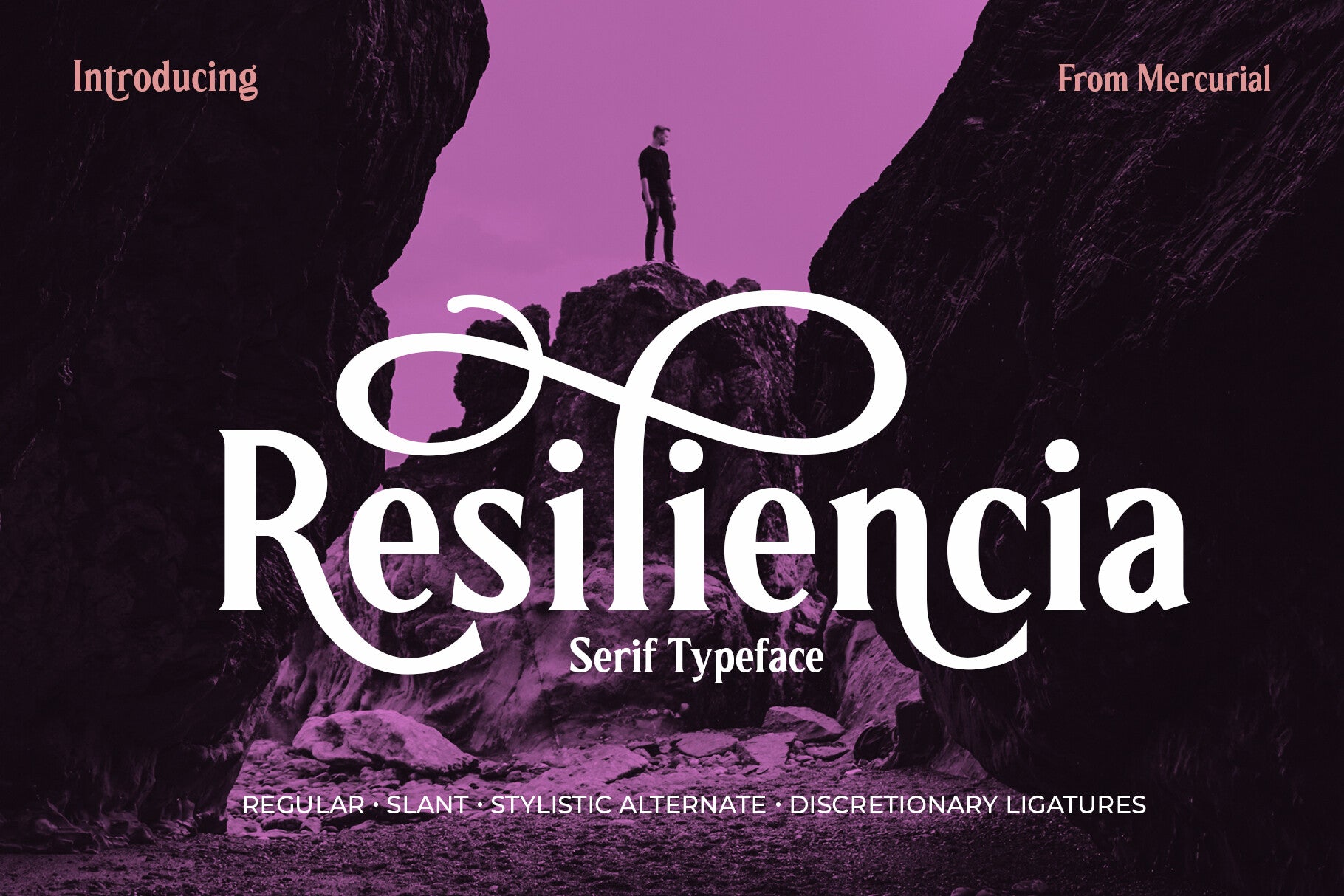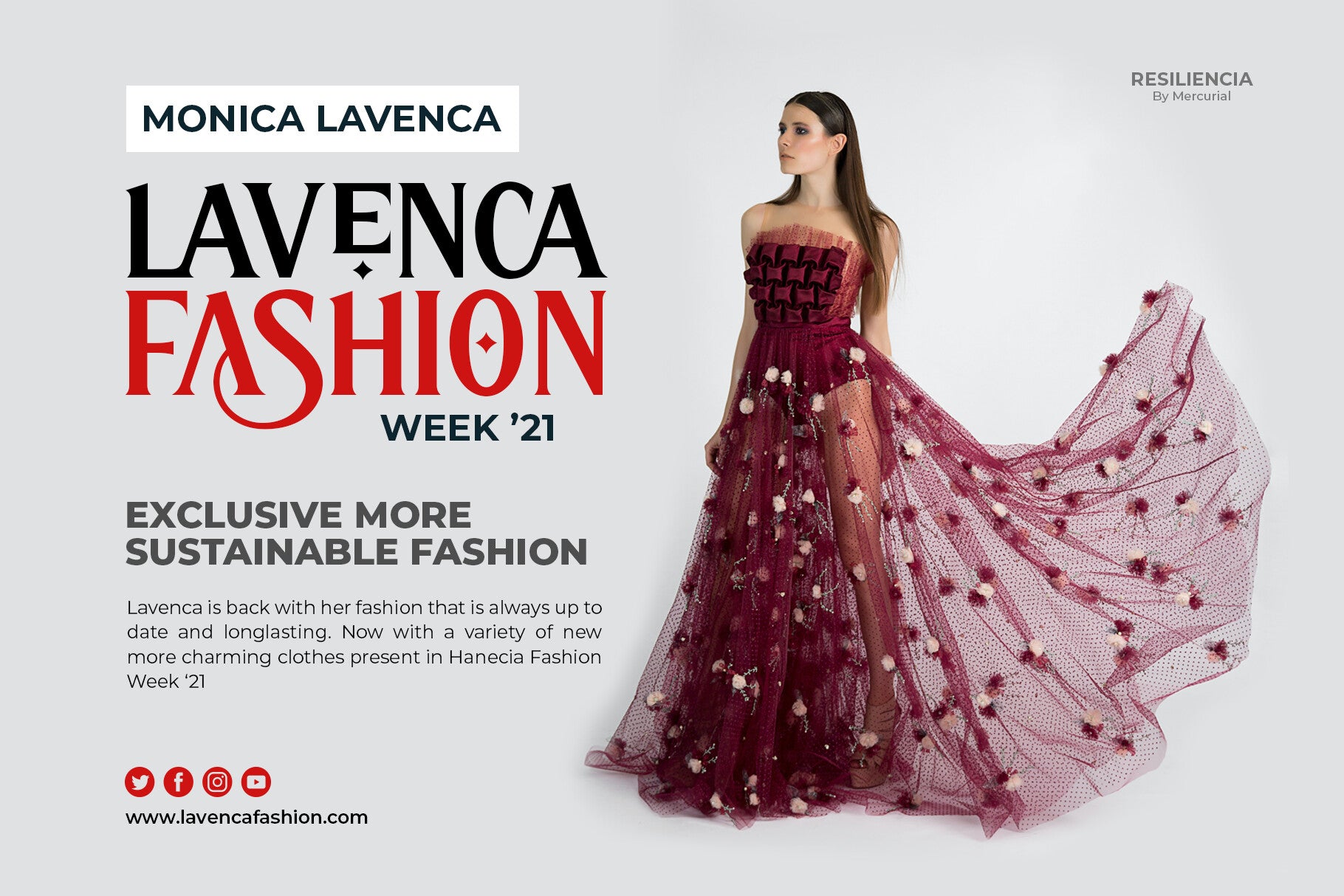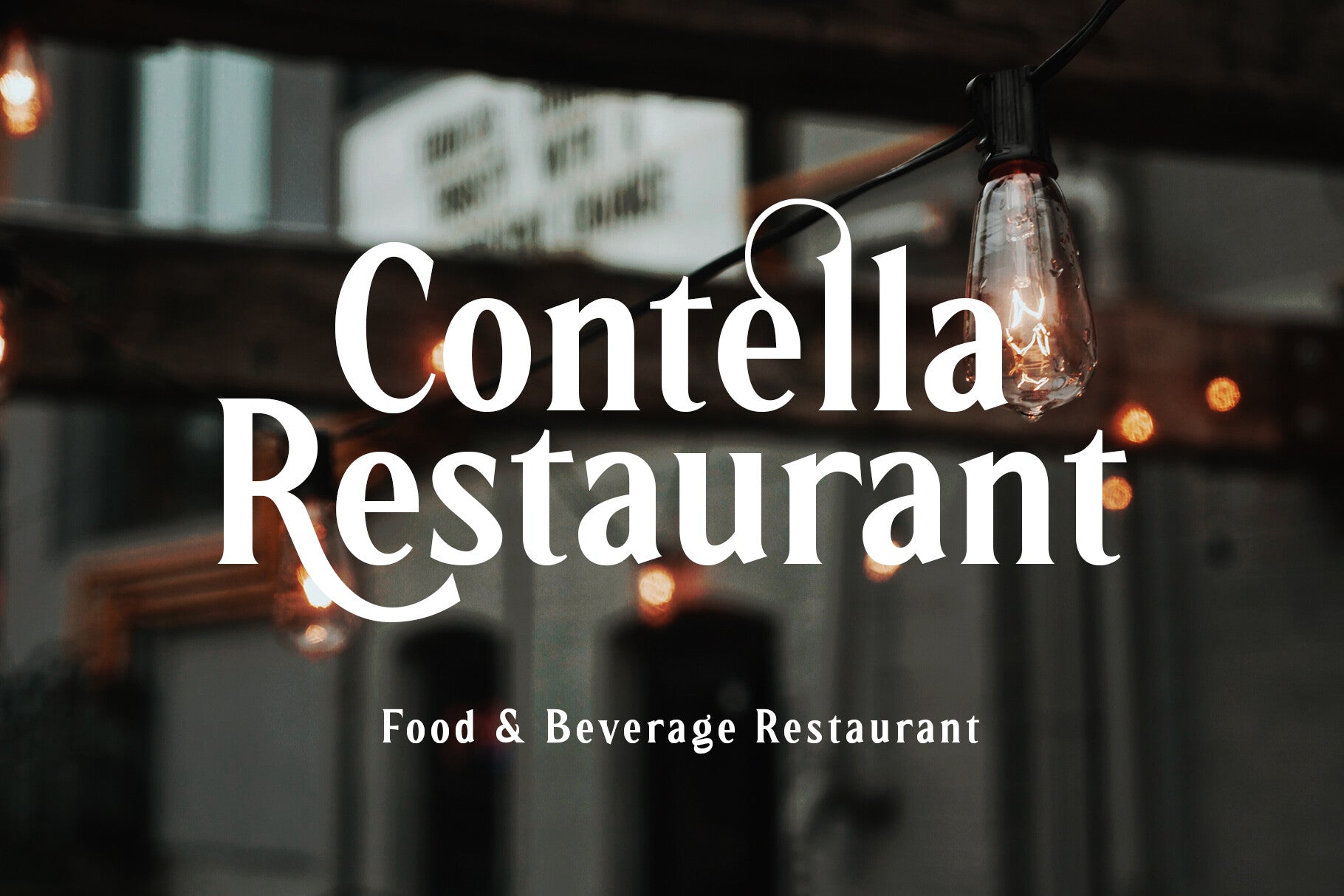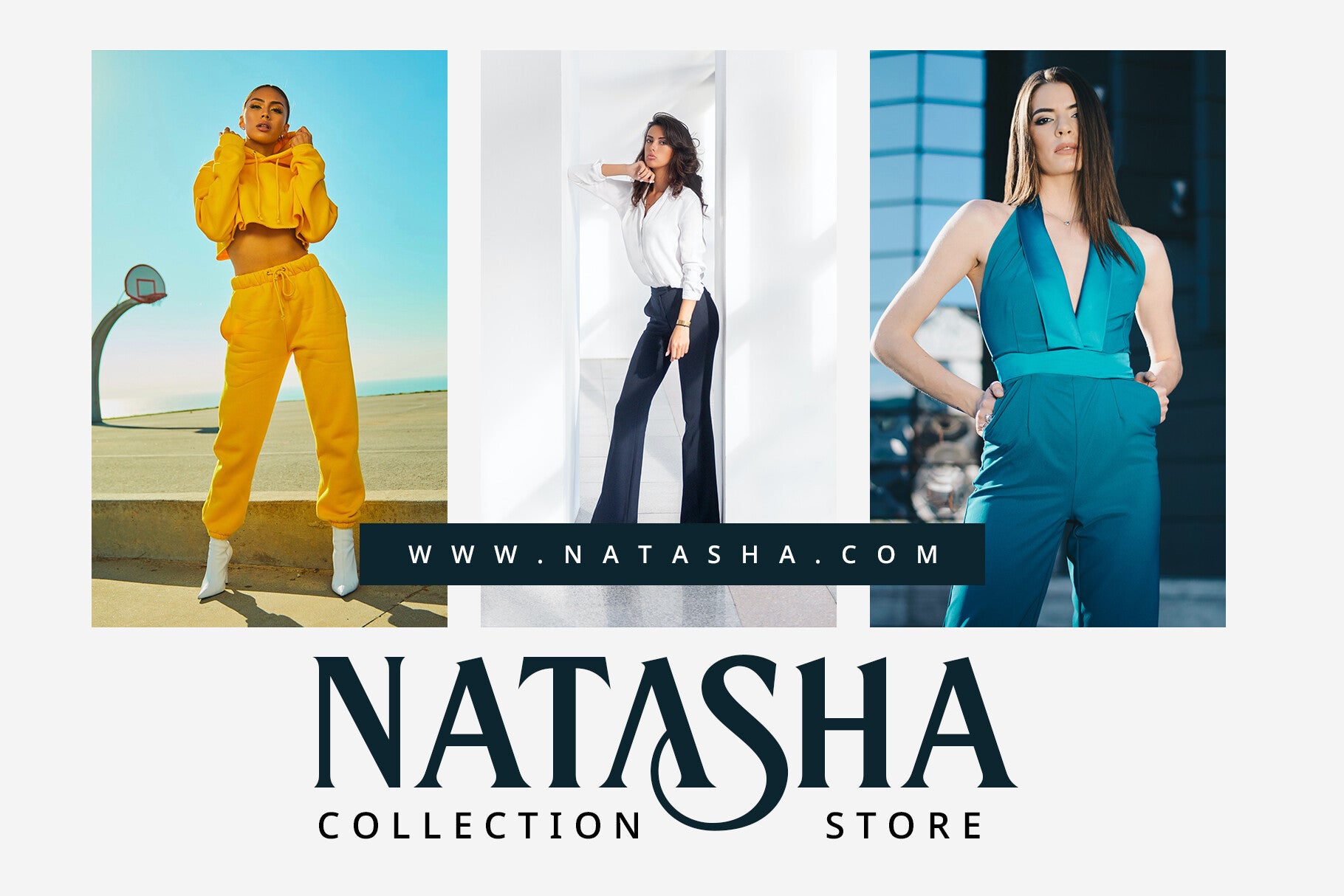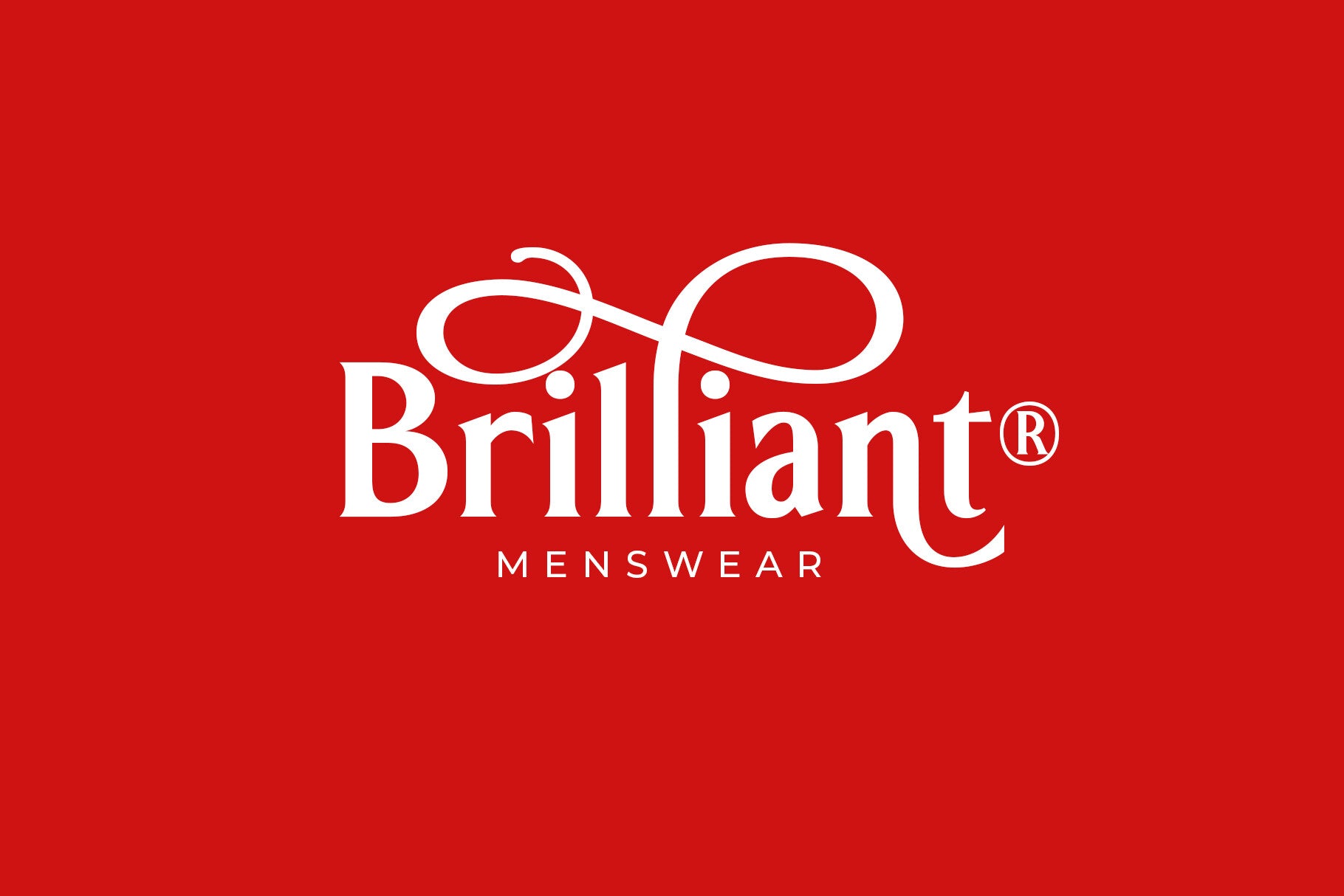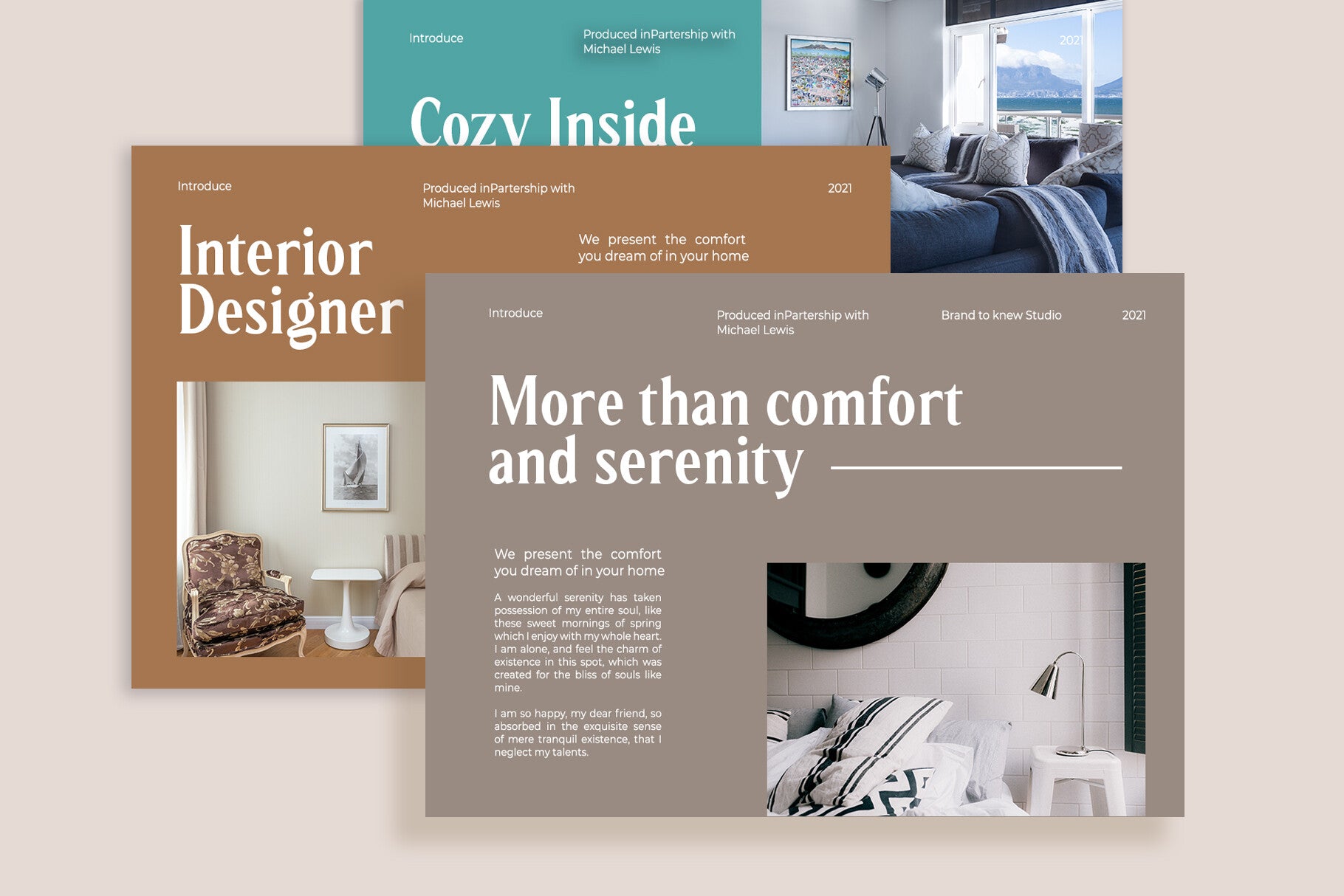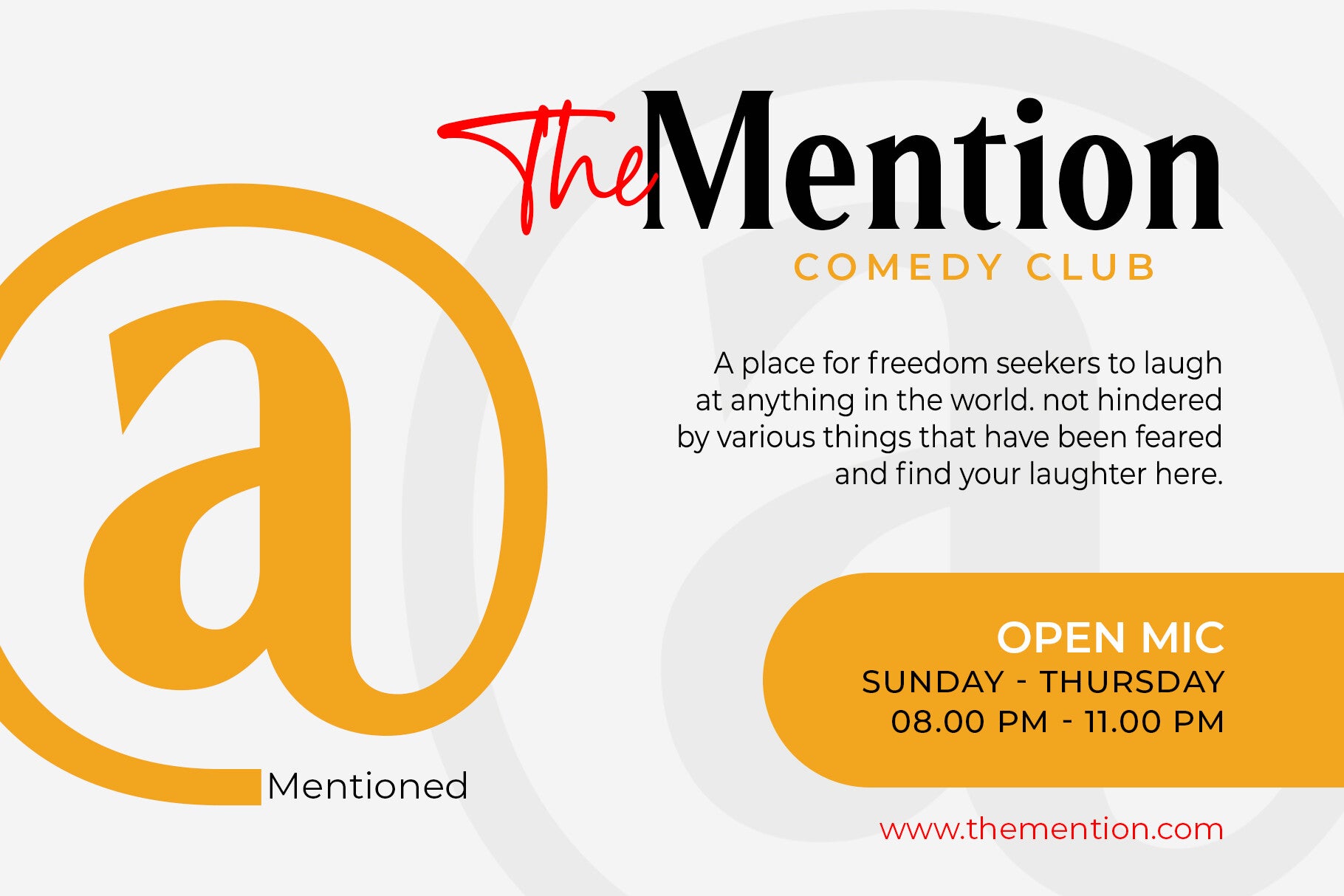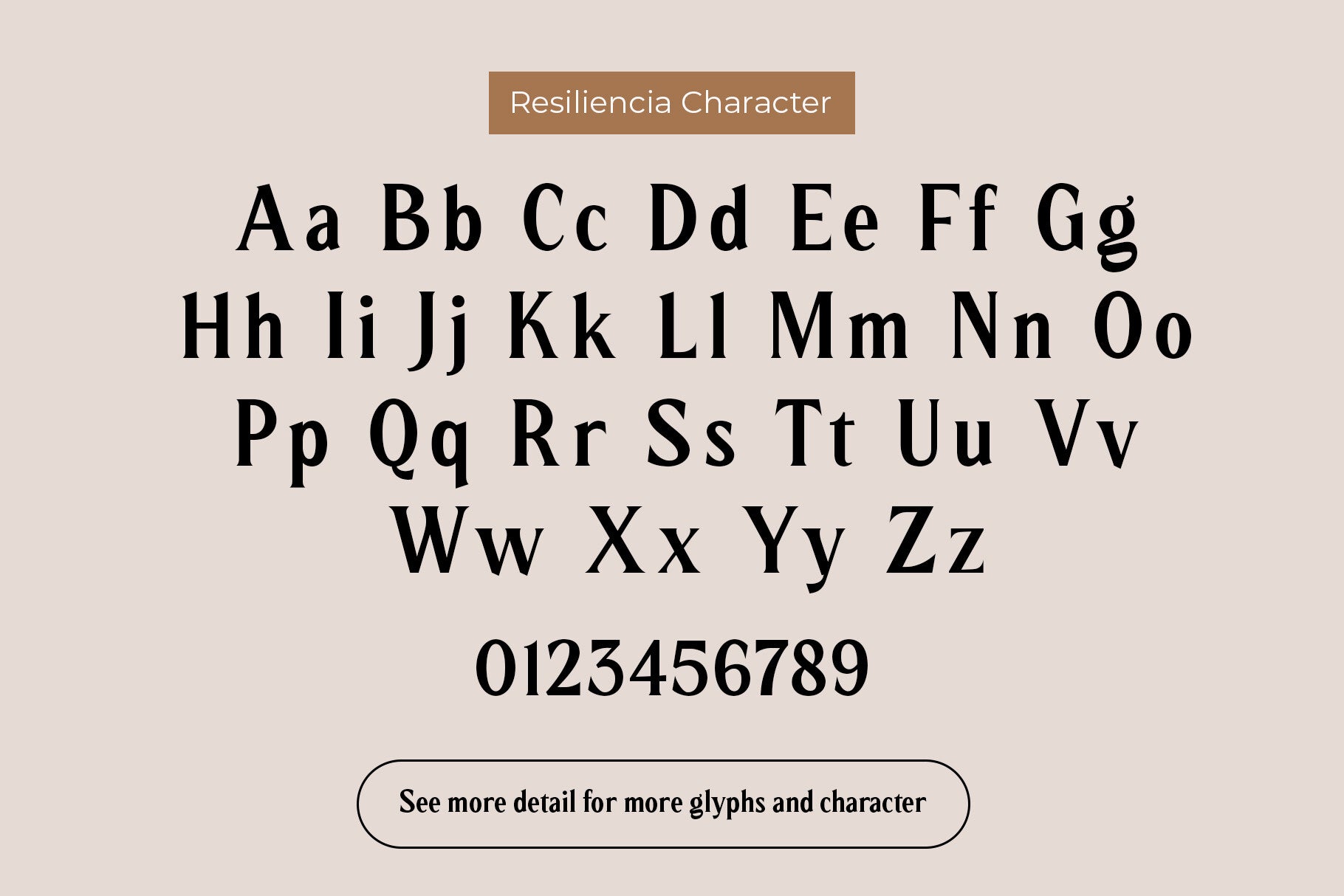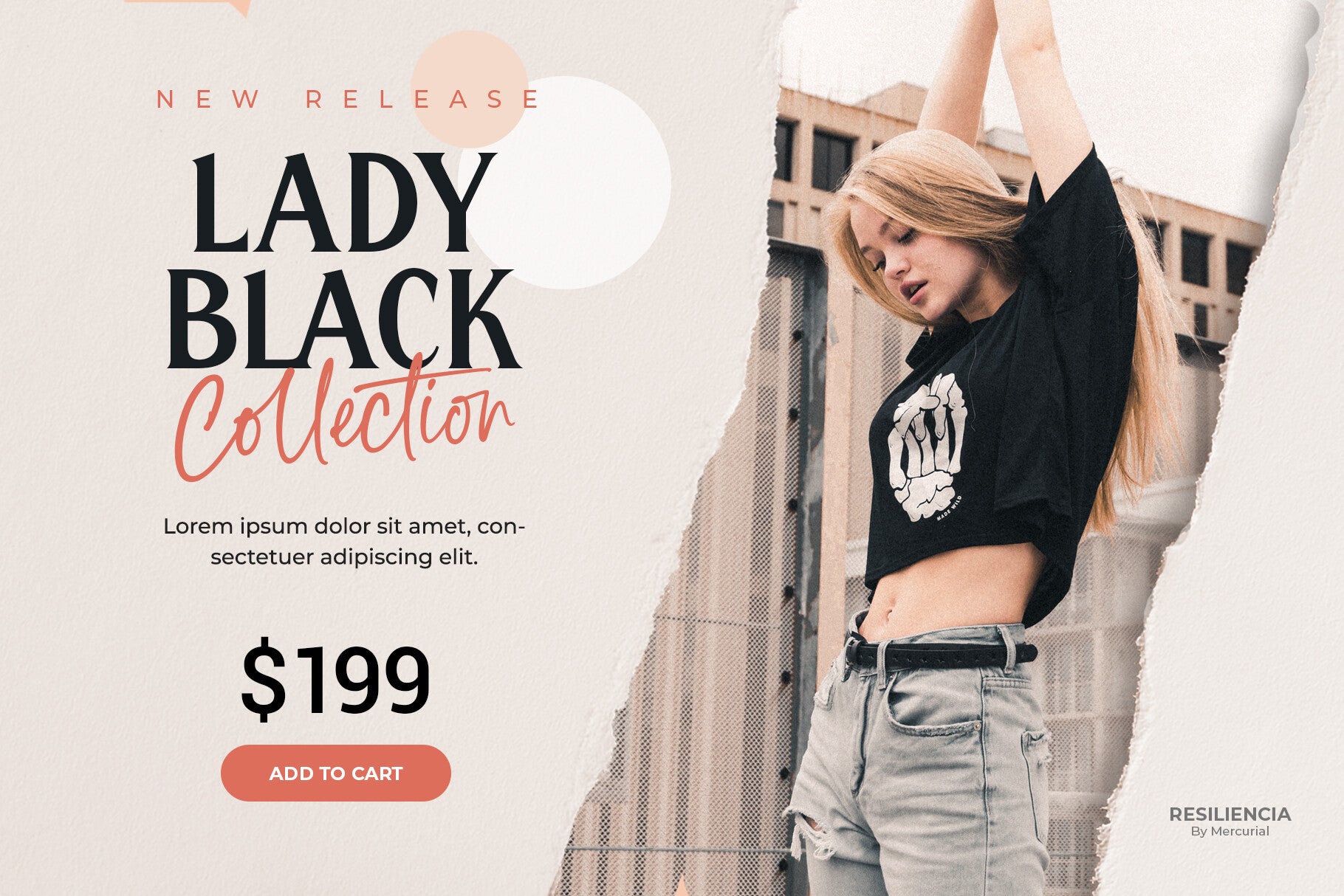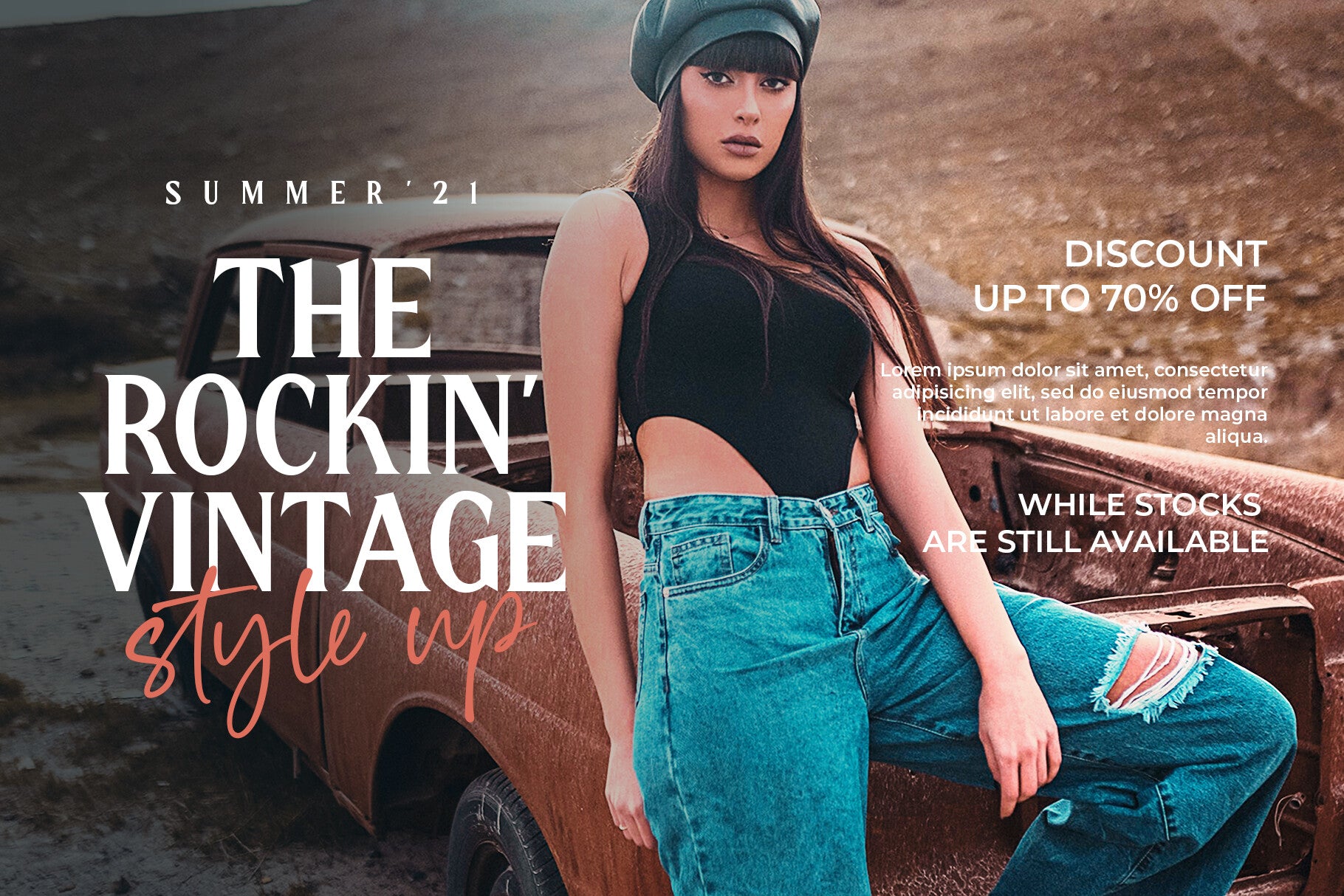
Resiliencia Font
Resiliencia is a bold and elegant serif typeface designed to make a lasting impression. Featuring dramatic curves, stylish alternates, and carefully crafted discretionary ligatures, it effortlessly blends classic sophistication with modern flair.
Available in both regular and slanted styles, Resiliencia is perfect for headlines, branding, editorial layouts, book covers, and any creative work that calls for a sense of strength and refinement. Its commanding presence and timeless beauty make it a go-to choice for designers looking to elevate their projects with confidence and grace.